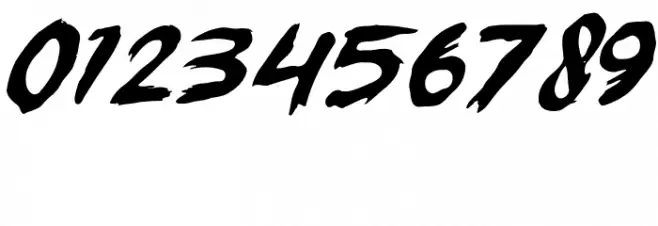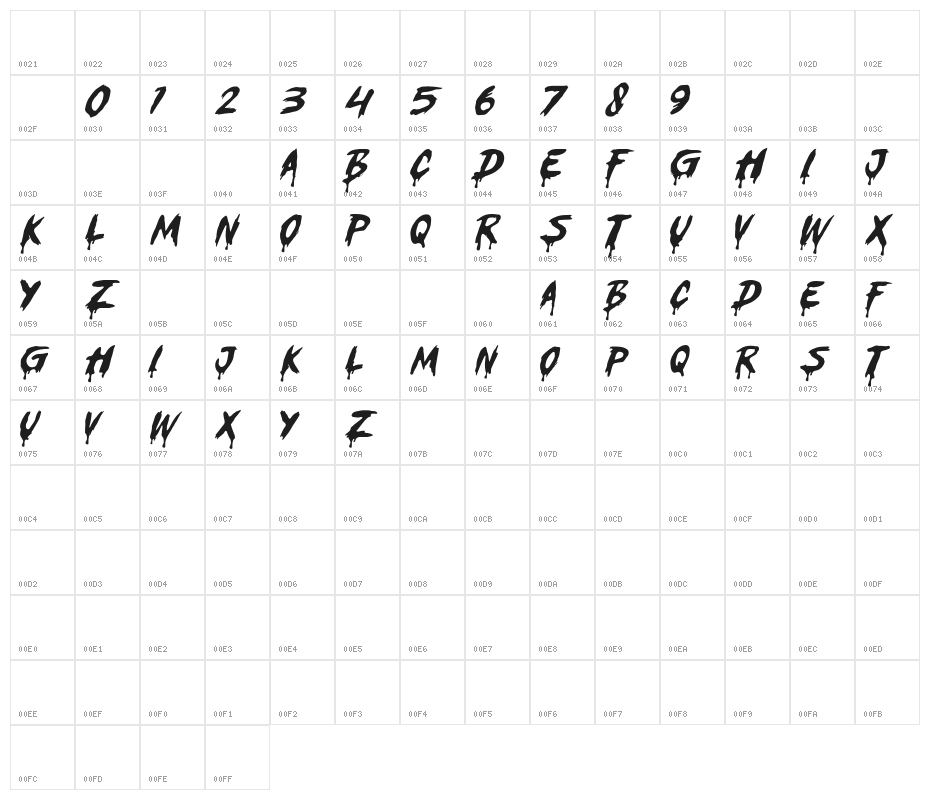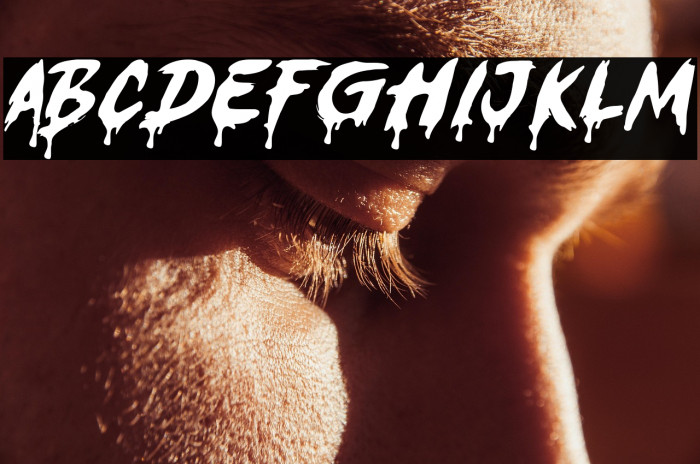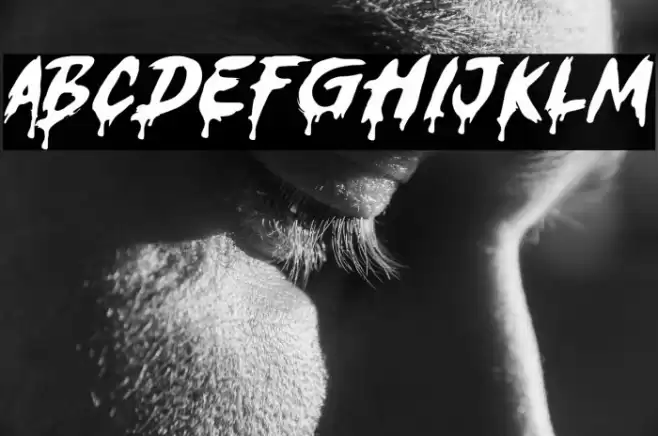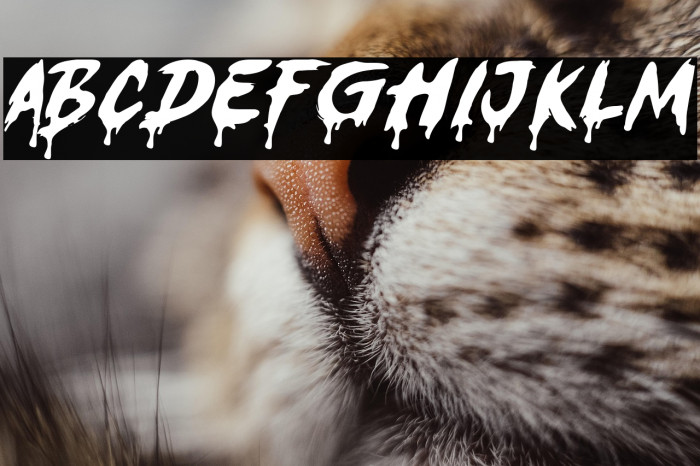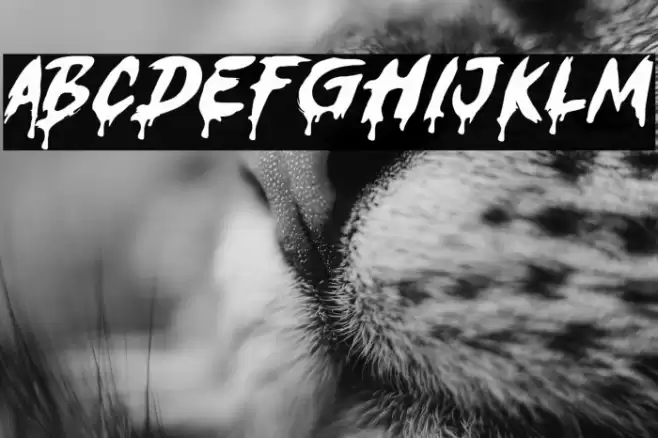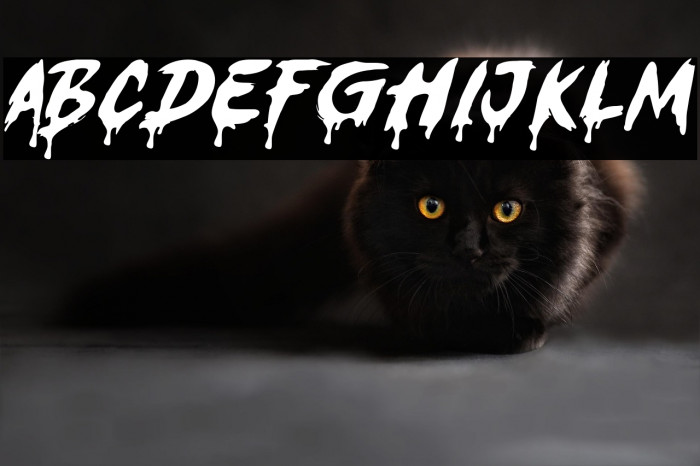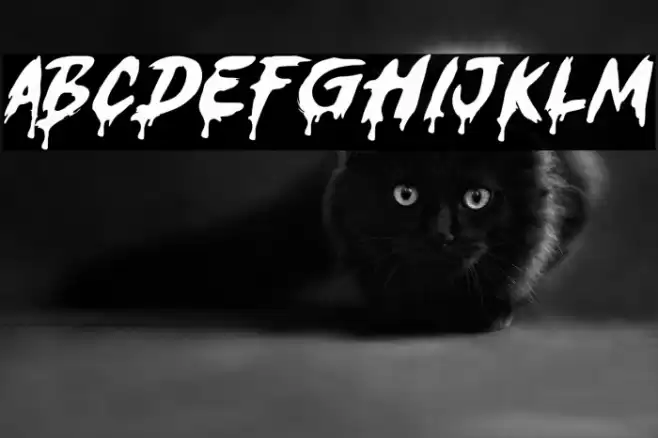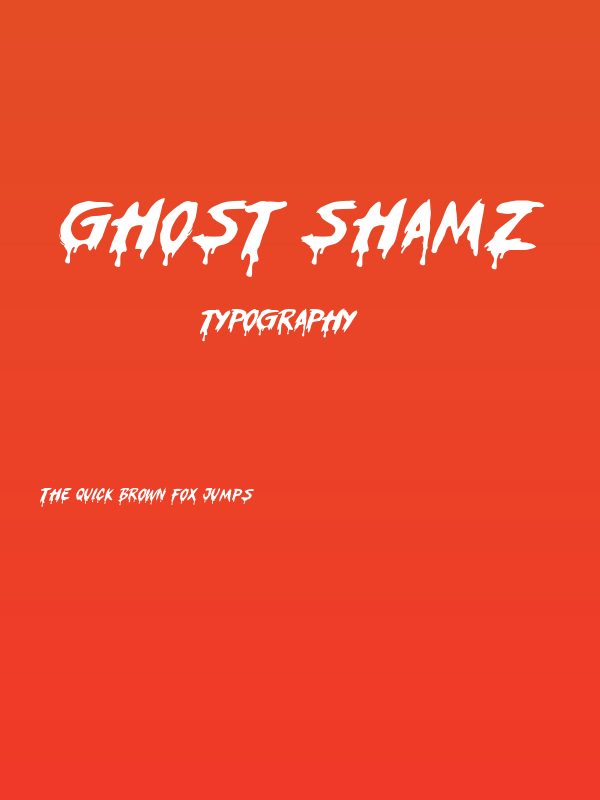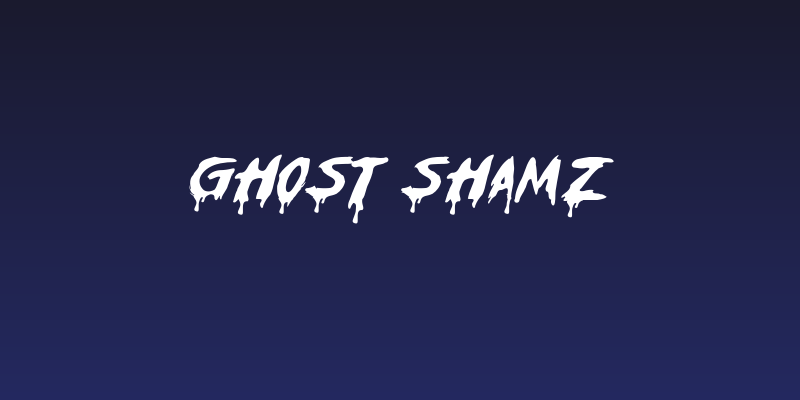
Ghost ShamZ Font
Ghost ShamZ Description
This font features a bold and dramatic style with dripping, ghostly elements that give it a spooky, haunted appearance. The letters are designed to look as though they are melting or dripping, which adds a unique and eerie touch. The uppercase and lowercase letters maintain a consistent style, with sharp edges and a slightly slanted orientation that enhances the dynamic feel. The numbers and special characters follow the same design principles, ensuring a cohesive look across all elements. This font is perfect for Halloween-themed projects or any design that requires a touch of the macabre.